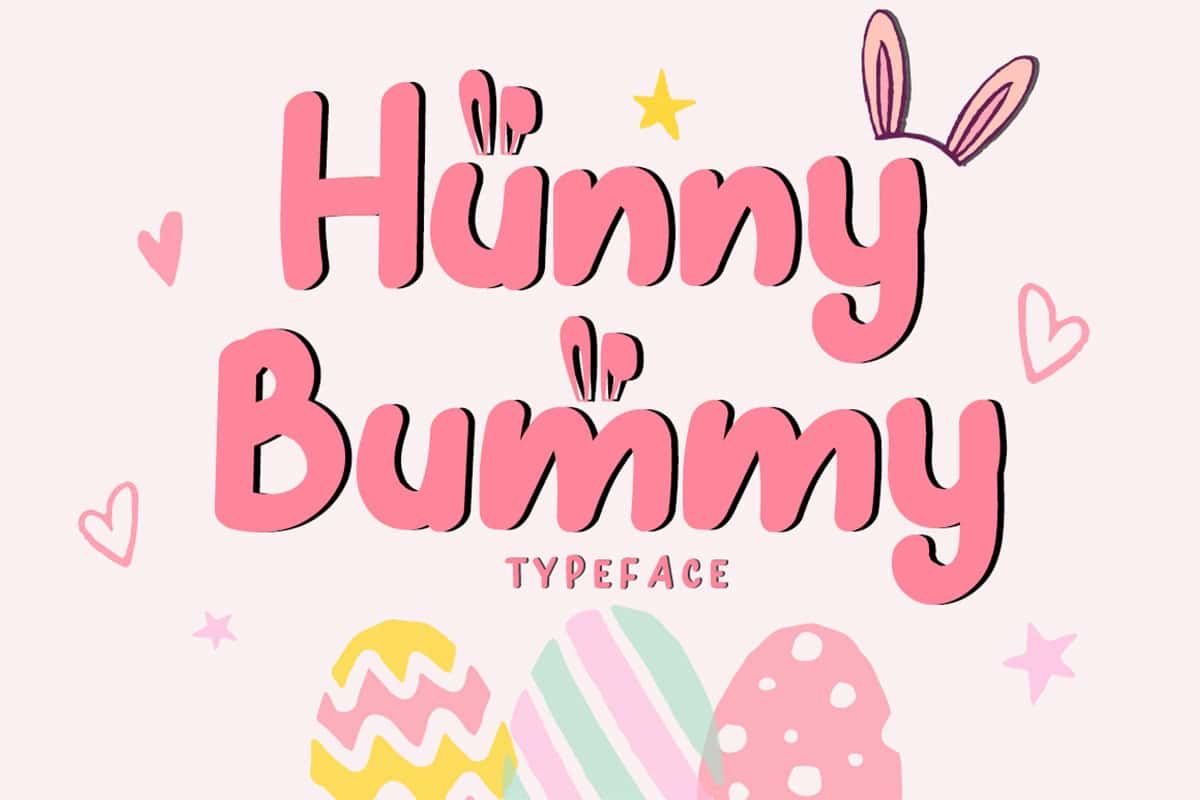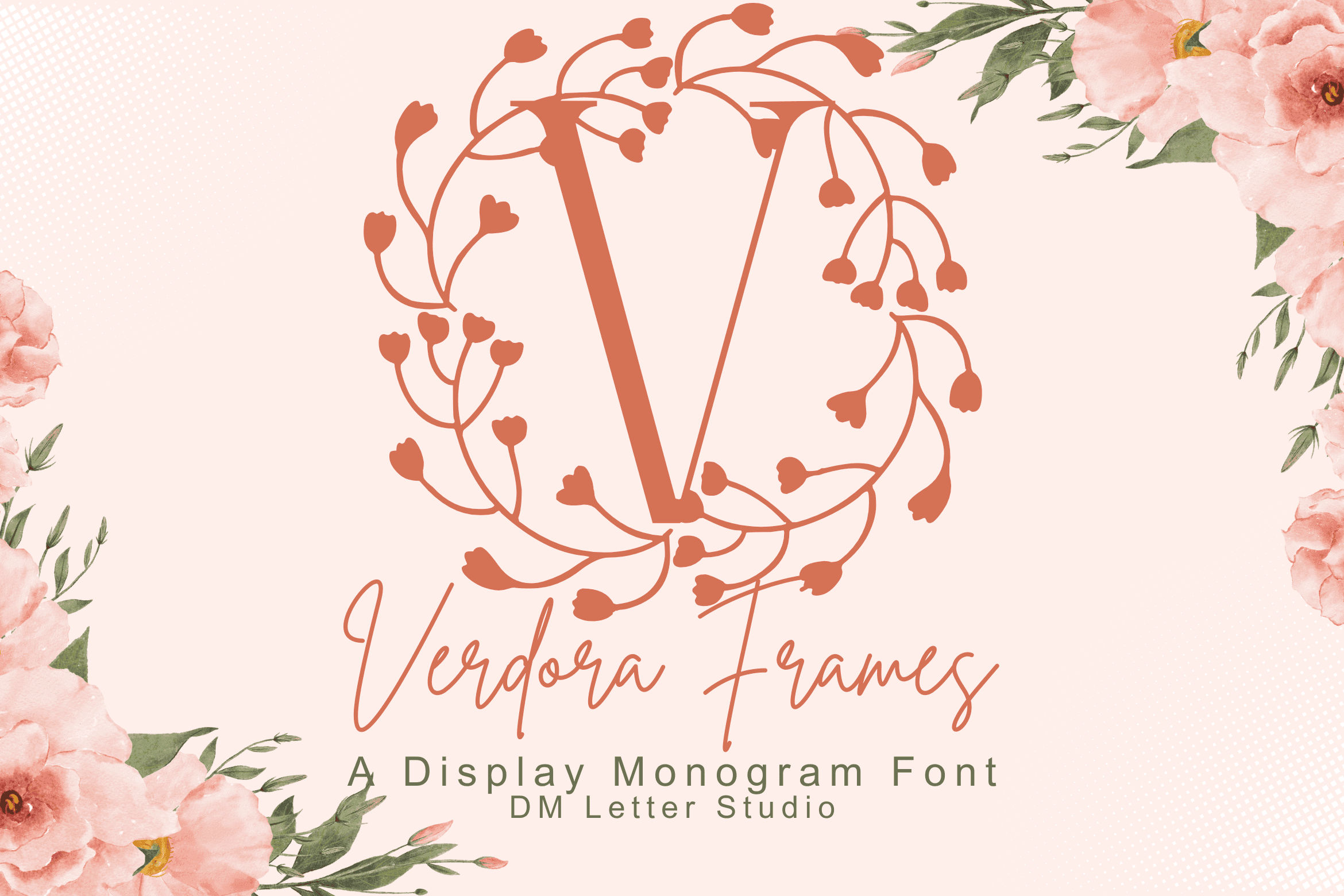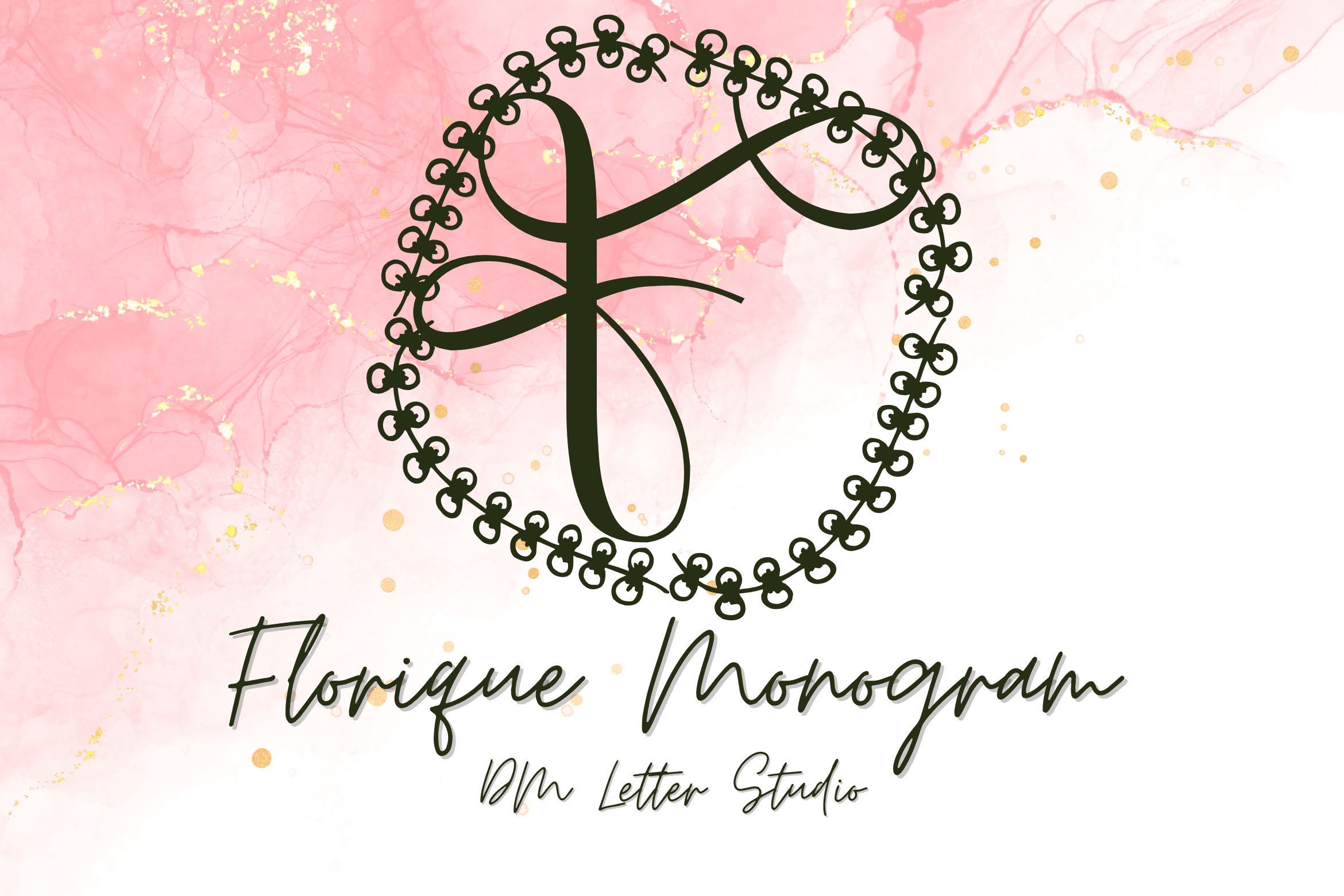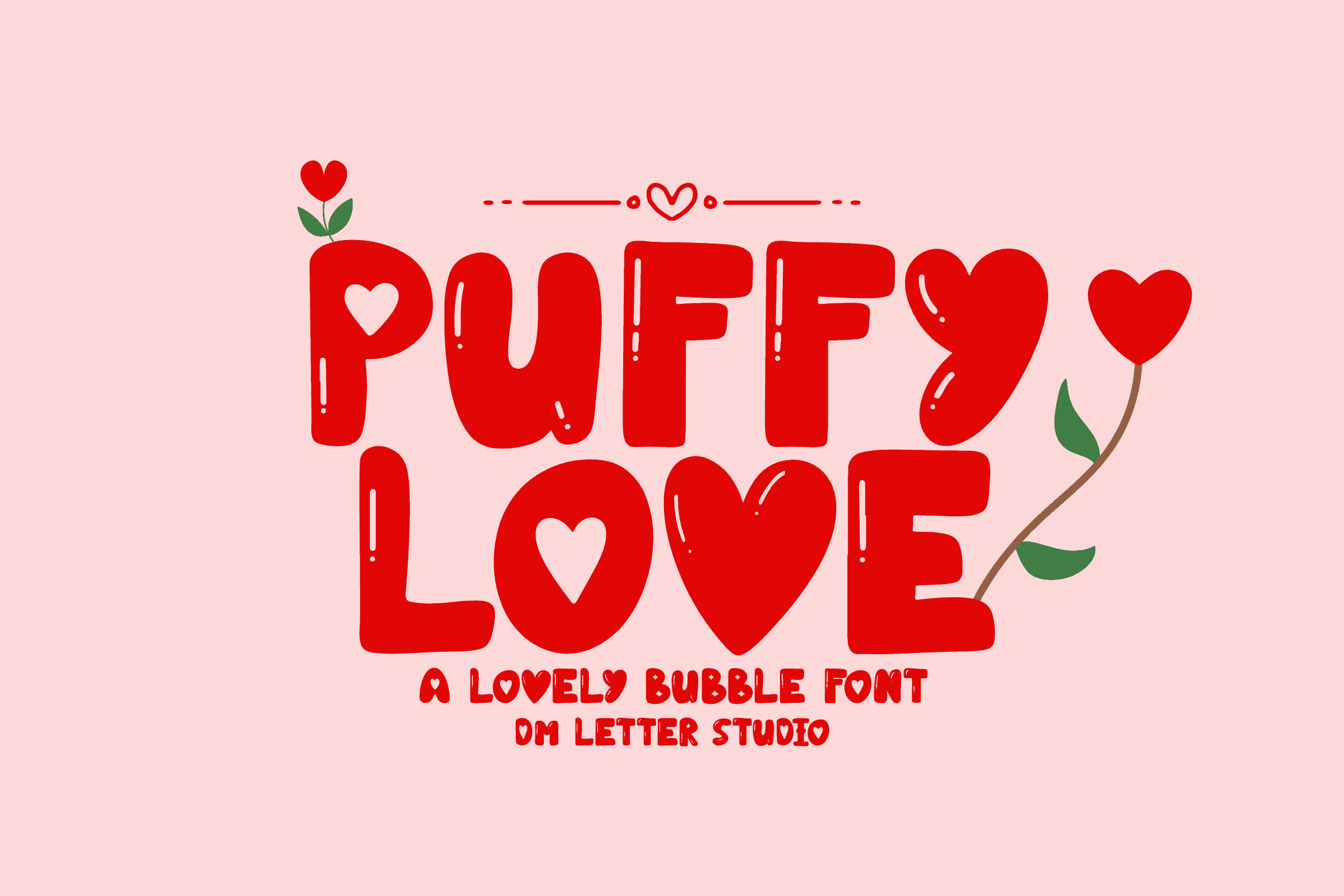
30+ Jewelry Business Name Ideas You’ll Love
Your jewelry brand’s name is more than just a word it’s the first sparkle customers see. The right name can evoke luxury, trust, and style, helping you stand out in a crowded market. That’s why jewelry business name ideas are so important. In this guide, we’ll share over 30 creative, elegant, and unique name ideas you can use or adapt for your business. Whether you’re starting a fine jewelry line, handmade shop, or trendy fashion brand, you’ll find inspiration here.
Elegant Jewelry Business Name Ideas
If your brand focuses on sophistication, choose a name that feels timeless. These work well for fine jewelry or bridal collections:
• Radiant Heirlooms
• The Gilded Lily
• Crown & Carat
• Velvet Gem Co.
• Aurora & Co.
• Timeless Treasures
• Evergold Studio
• Regal Reflections
• Luxe Legacy
Font Suggestion: Use a clean serif font like Sparkling Bright for a refined logo aesthetic.
Trendy & Modern Jewelry Business Name Ideas
For brands that target a younger audience, pick names that sound fresh and stylish:
• Gem Society
• The Dainty Vault
• Urban Spark
• Stoned & Chic
• Prism Collective
• Gold Rush Co.
• Aura Jewelry Lab
• Nova Gems
These names pair perfectly with bold sans serif fonts and geometric logos.
Cute & Playful Jewelry Business Name Ideas
If you’re creating colorful, whimsical, or handmade jewelry, a playful name will connect with buyers:
• Glitter Bug
• Sparkle Studio
• Shiny Things Club
• Bling Boutique
• Crystal Crush
• Charm Party
• Little Luxe
• Happy Gems
Font Pairing Suggestion: Match with rounded or bubbly fonts like Hunny Bummy or Puffy Love for a fun, approachable look.
Minimalist Jewelry Business Name Ideas
Minimalism never goes out of style perfect for dainty jewelry brands:
• Pure Form
• Line & Stone
• Bare & Bold
• Neutral Gem
• Quiet Shine
• Halo Studio
• ORO
Pair these names with clean, sans serif logos in black and white for a sophisticated edge.
Nature Inspired Jewelry Business Name Ideas
Great for boho brands or gemstone focused shops, these names evoke earth and sky:
• Wildstone Co.
• Moonstone Meadow
• Ocean Aura
• The Rustic Gem
• Petal & Pearl
• Forest Gold
• Desert Quartz
Font Pairing Suggestion: Complement these with floral monogram fonts like Florique Monogram or Verdora Frames.
Tips for Choosing the Best Jewelry Business Name
Picking the right name isn’t just about creativity it’s about strategy. Here’s how to choose:
• Keep it simple: A name that’s easy to spell and pronounce is easier to remember.
• Think brand personality: Is your style elegant, trendy, or playful? Match the name to the vibe.
• Check availability: Make sure the domain and social handles are free.
• Test it: Say it out loud does it sound good as a logo or hashtag?
Why Jewelry Business Name Ideas Matter for Branding
Your name sets the tone for your entire business. Strong name ideas build trust, attract the right audience, and help you stand out in search results. A well chosen name is also easier to market, making your social media (Instagram or Facebook) and packaging more cohesive.
How to Turn Your Jewelry Business Name Into a Brand
Once you choose your name, bring it to life with design:
1. Create a Logo: Pair an elegant display font with a clean secondary font.
2. Pick a Color Palette: Metallics (gold, rose gold, silver) always work well for jewelry brands.
3. Develop a Tagline: Reinforce your name with a short, catchy phrase.
4. Consistent Branding: Use the same fonts and colors on packaging, social media, and website.
Your name is the first impression you make. These 30+ jewelry business name ideas are designed to spark inspiration and help you find a name that feels authentic, marketable, and memorable. Whether you want a chic minimalist identity or a playful, colorful vibe, your perfect name is here waiting to shine.